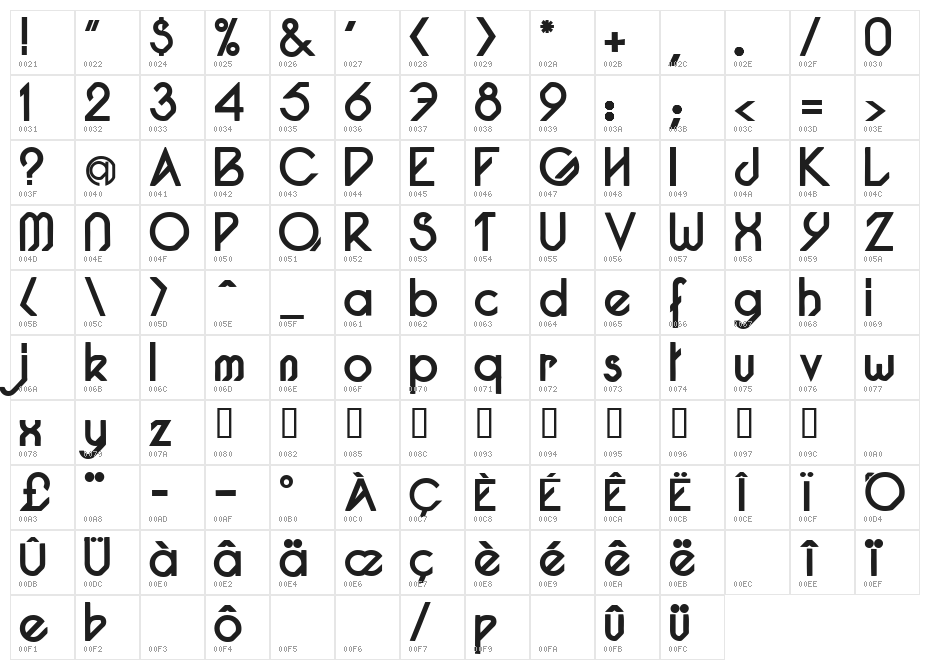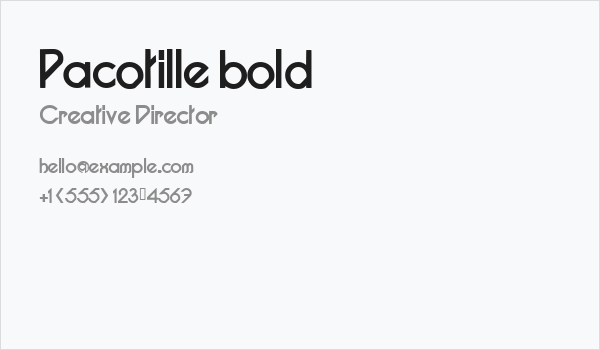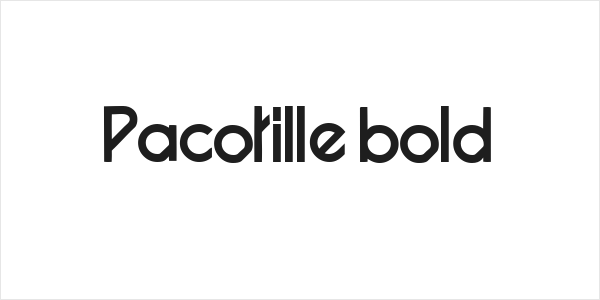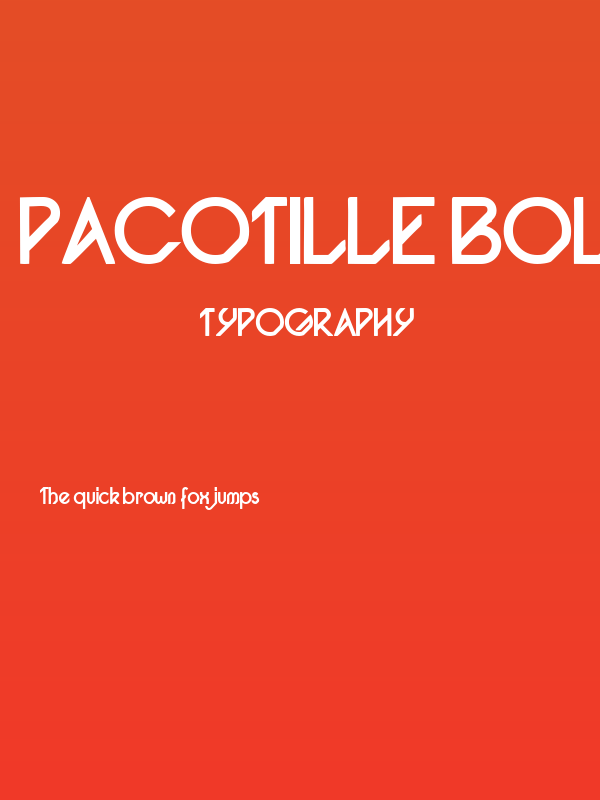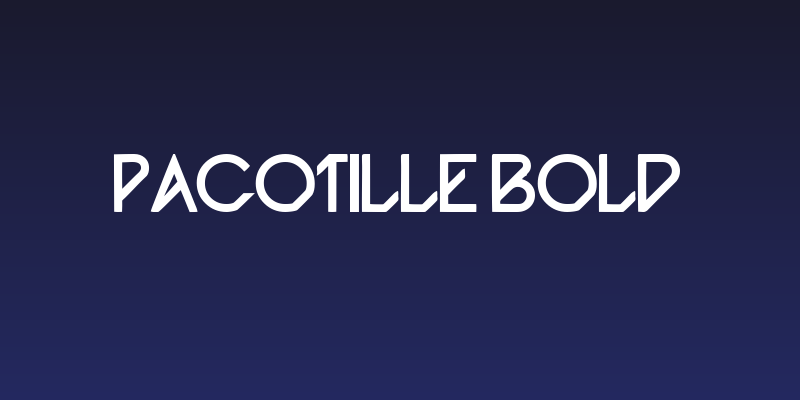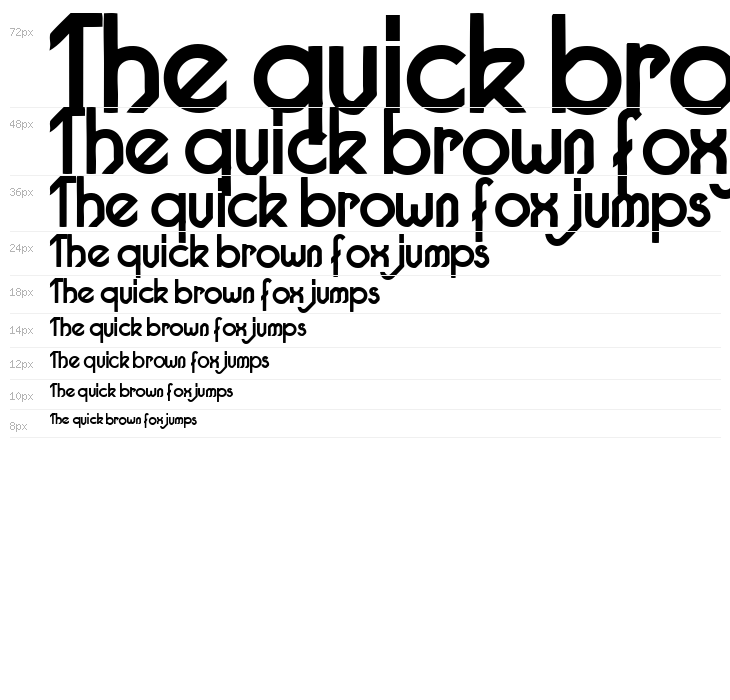
Pacotille bold Font
Pacotille bold Description
This font features a bold and geometric style with a modern twist. The uppercase letters are characterized by sharp angles and clean lines, creating a sense of precision and strength. The lowercase letters maintain the geometric theme, with some characters exhibiting unique, stylized forms that add a touch of creativity. The numerals are consistent with the overall design, offering a cohesive look. Special characters are well-integrated, maintaining the bold and angular aesthetic. This font is ideal for projects that require a strong visual impact and a contemporary feel.
Proposed ProjectsIdeal for branding, headlines, posters, and modern design projects.